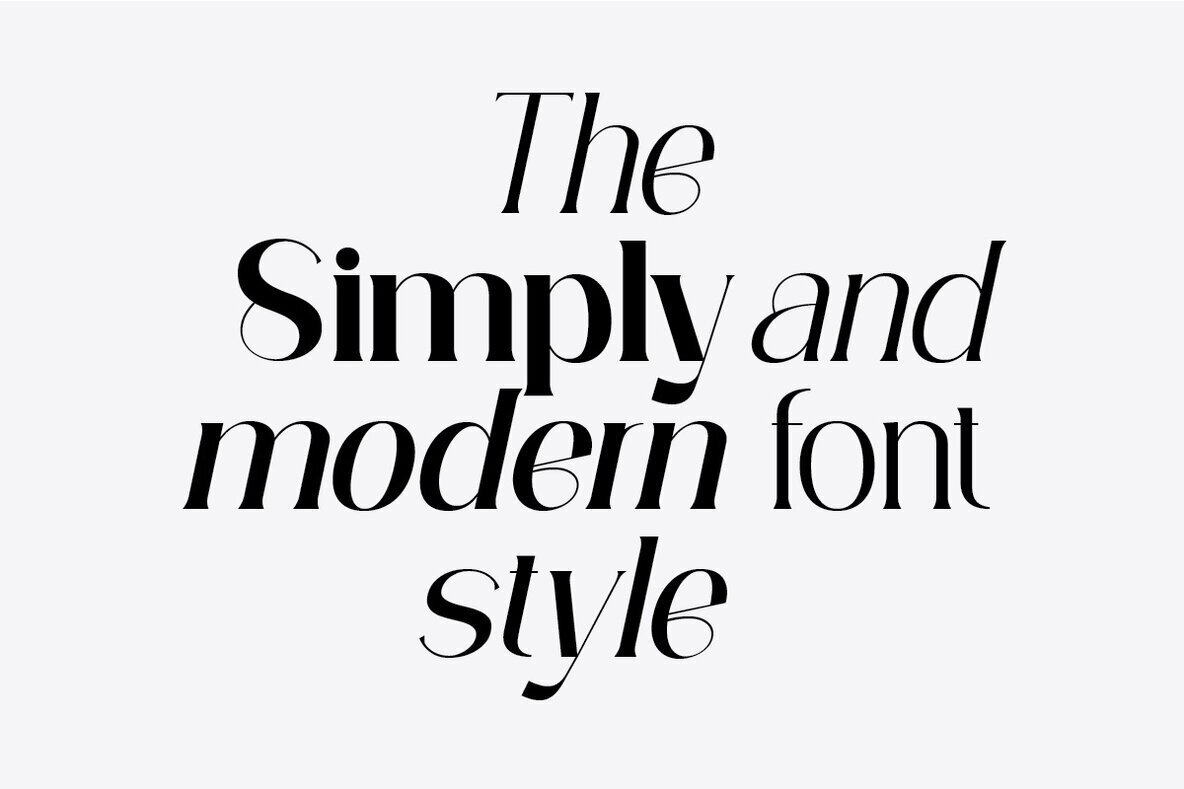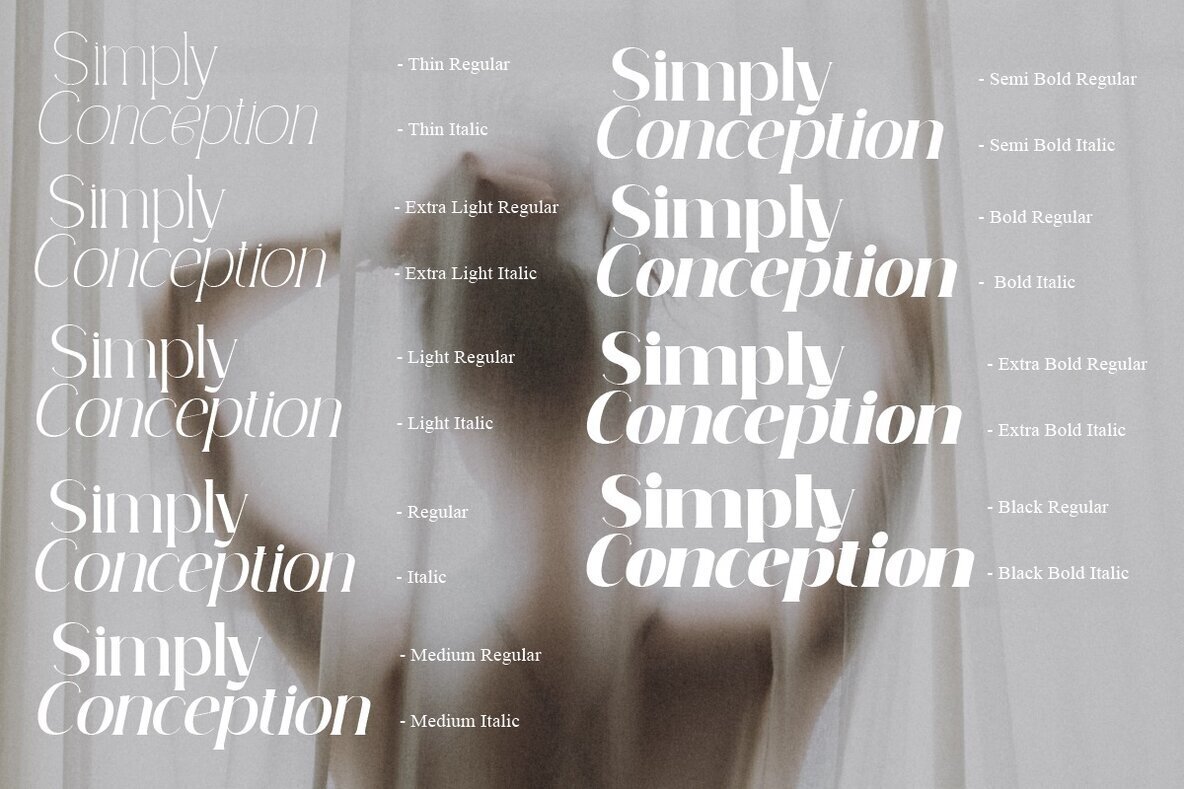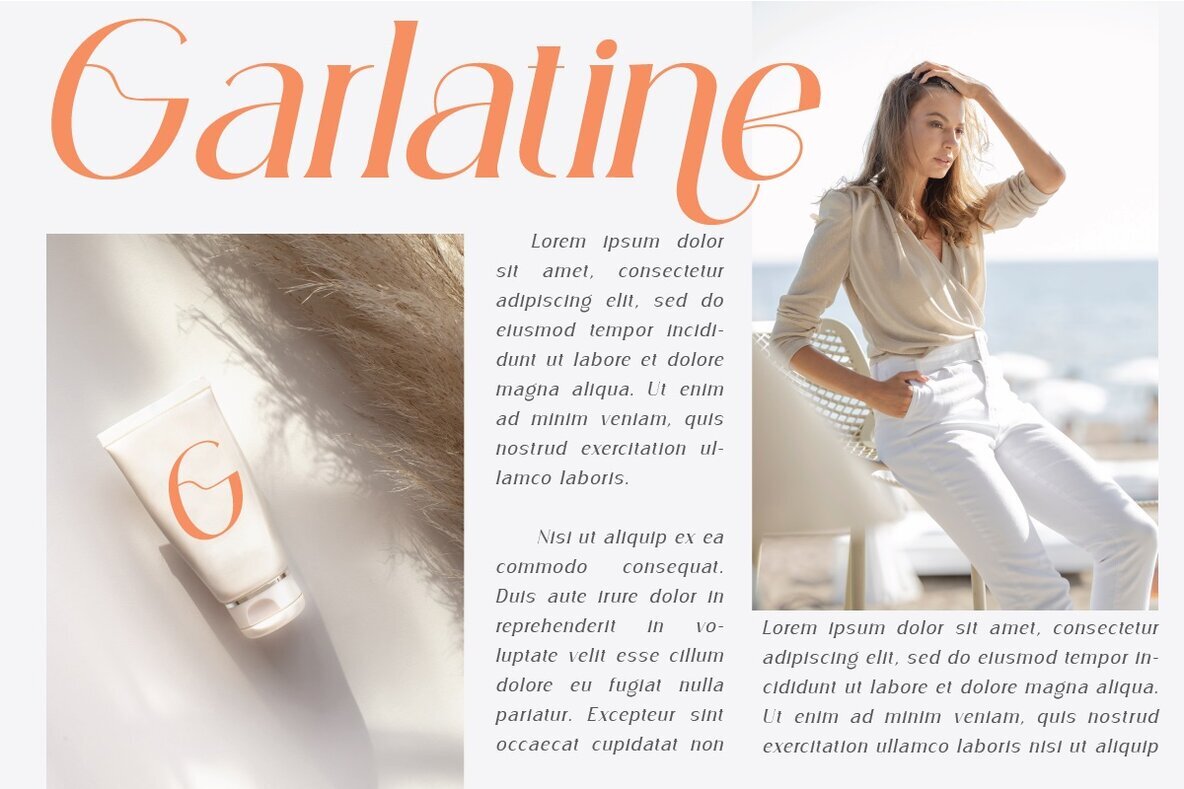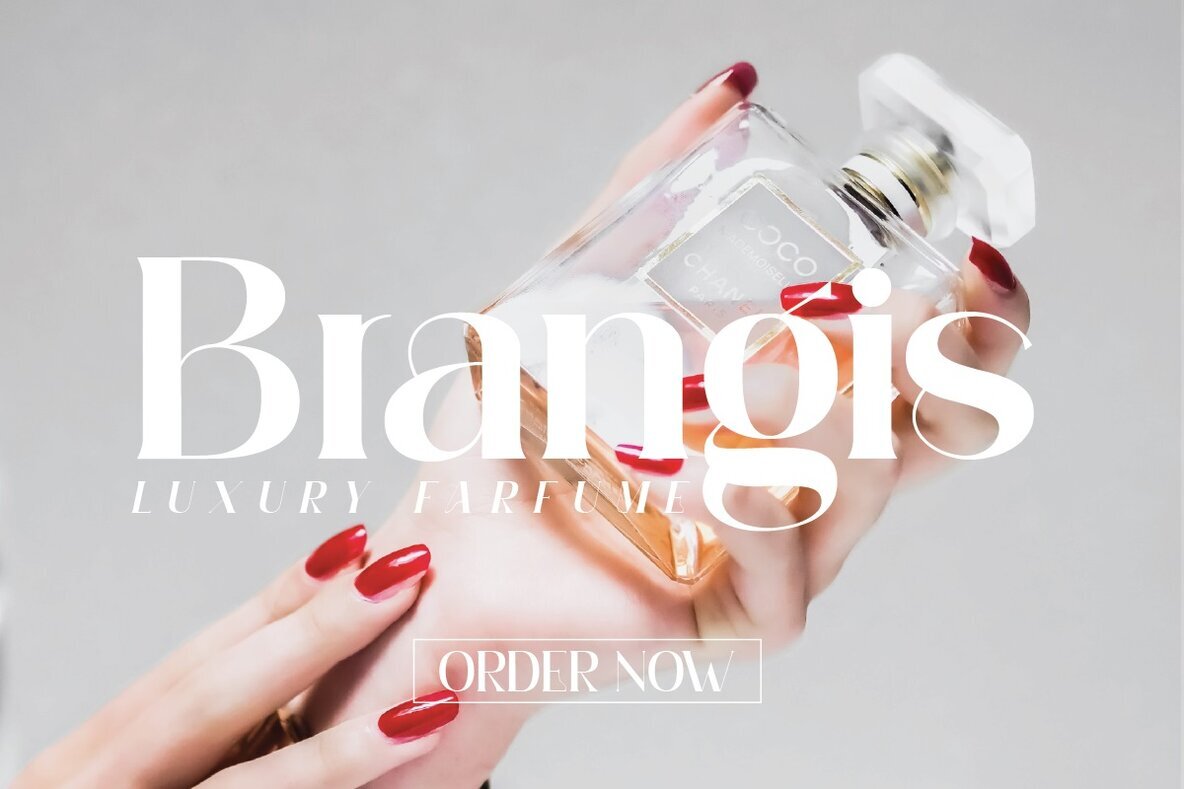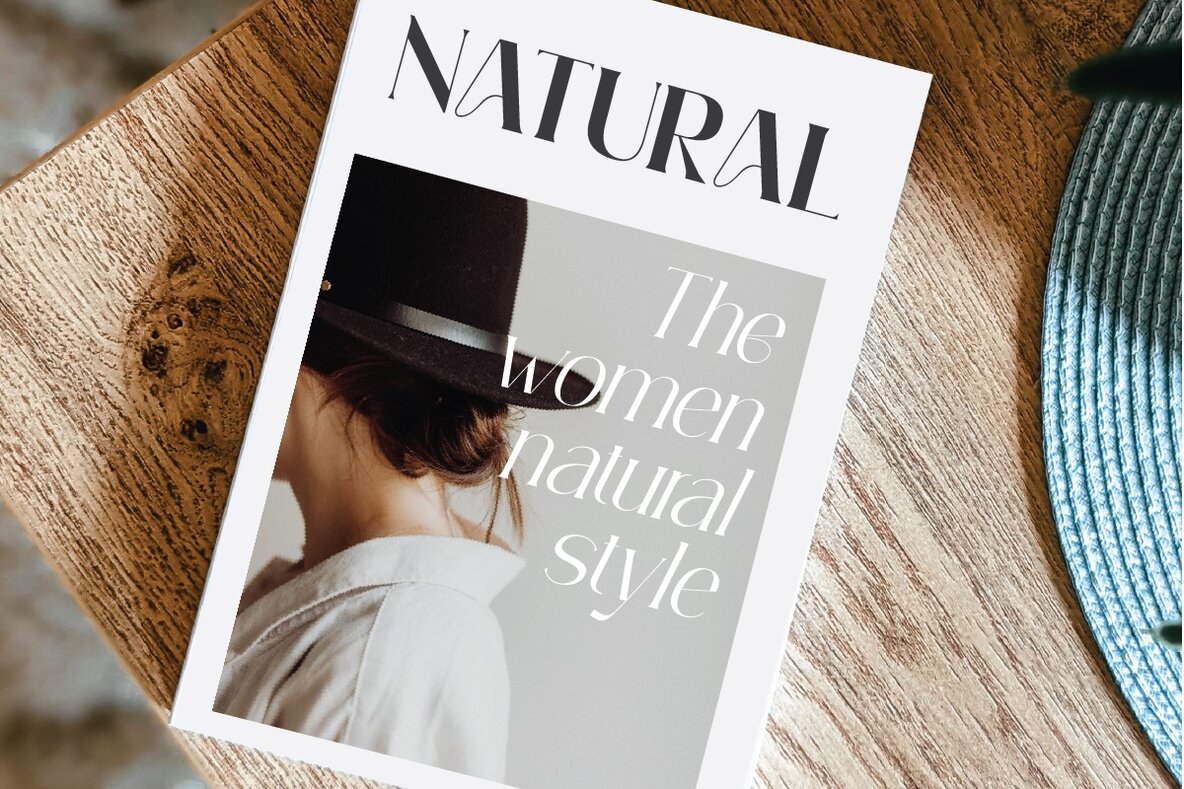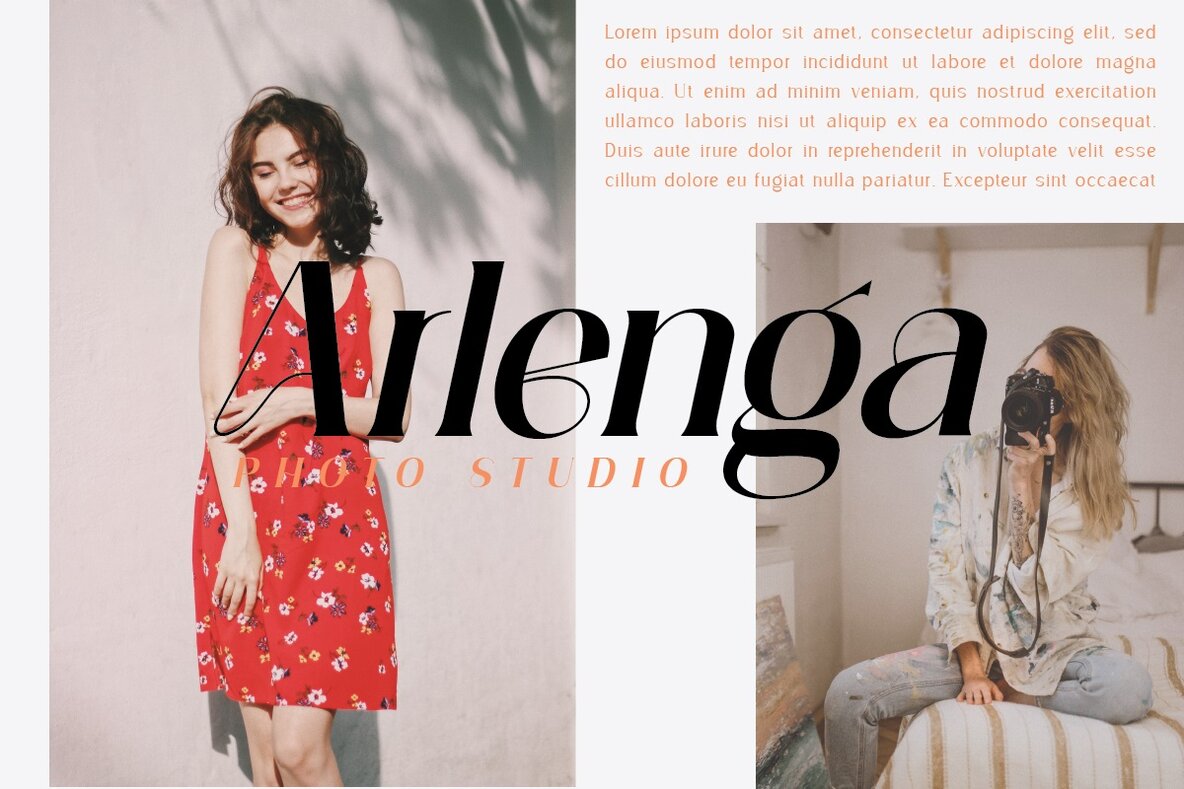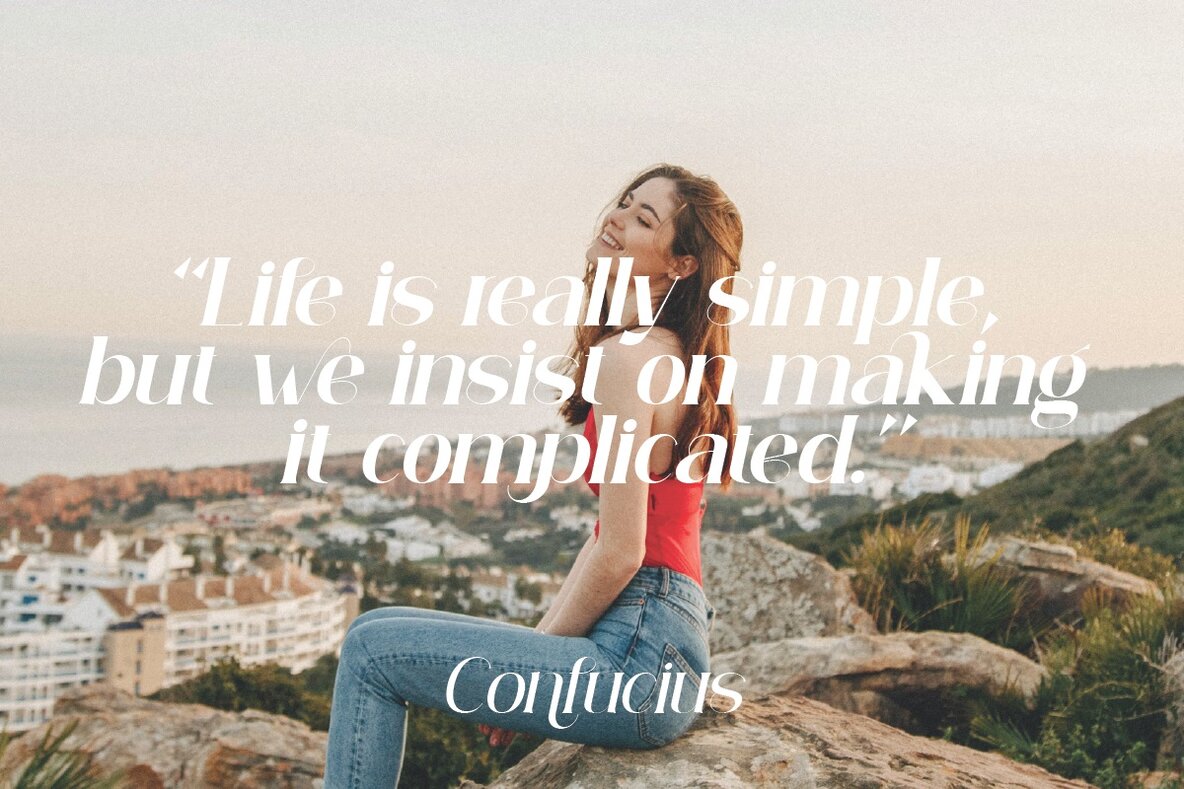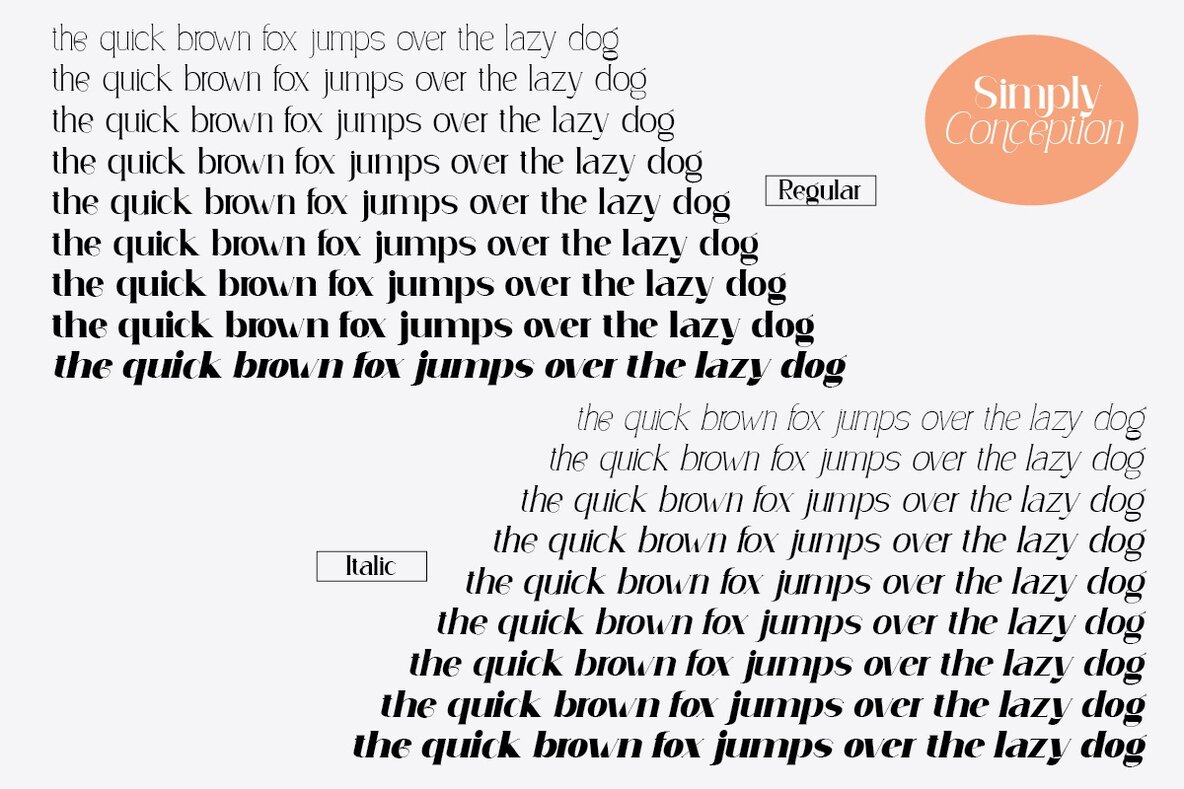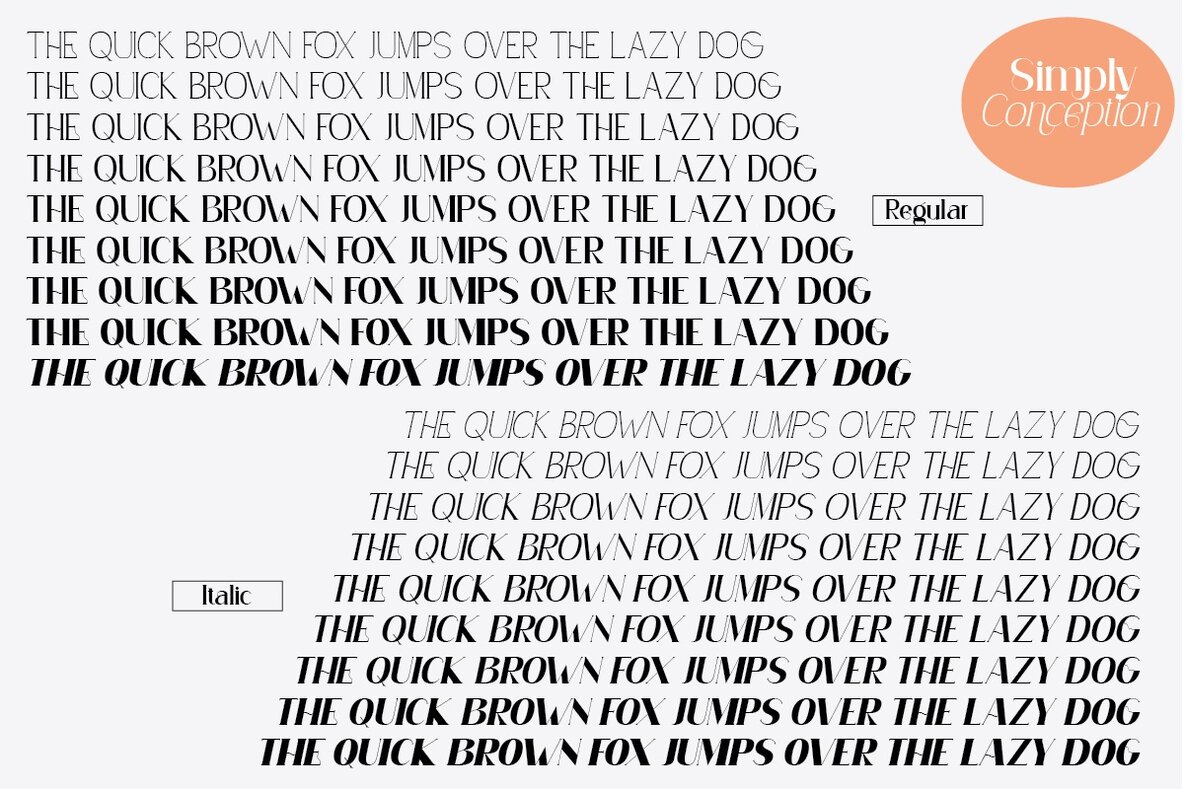
Simply Concetion Font
Simply Conception stands out as a distinctive family within the realm of serif fonts. Its modern design encompasses 18 styles, ranging from the delicate thin to the commanding black, each available in both regular and italic forms. This typeface's versatility shines whether you're crafting a magazine, designing a poster, or building a brand.Simply Conception: A Versatile Serif Typeface
Engage your audience with this sophisticated serif, perfect for diverse digital and print mediums.